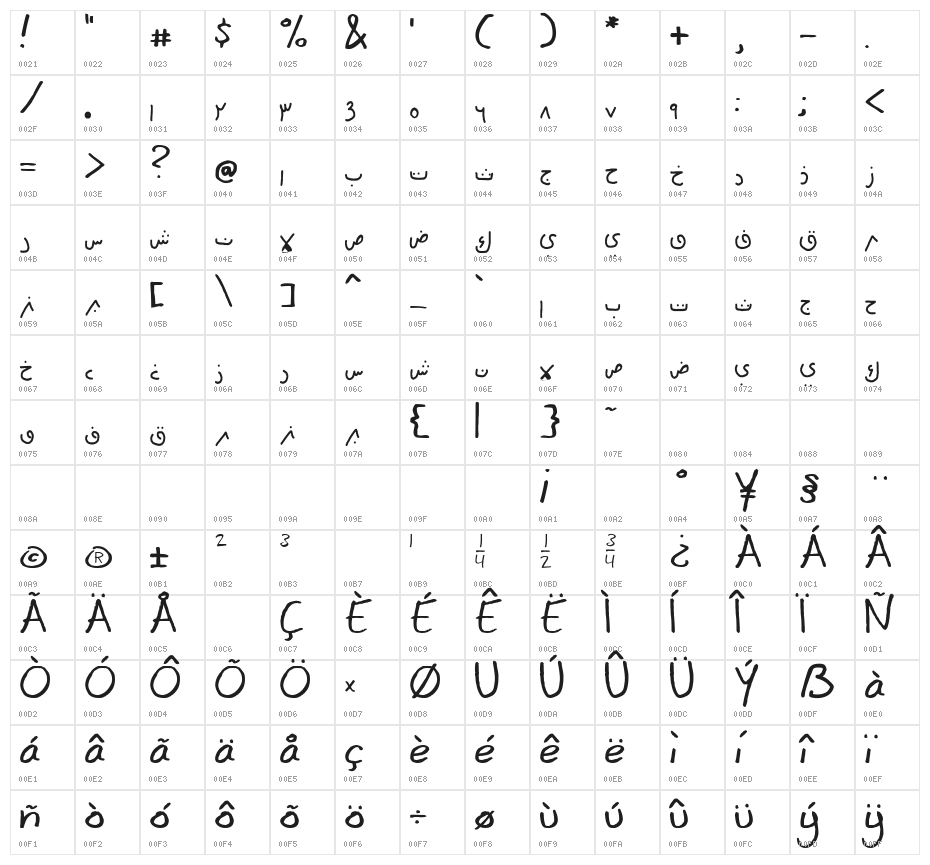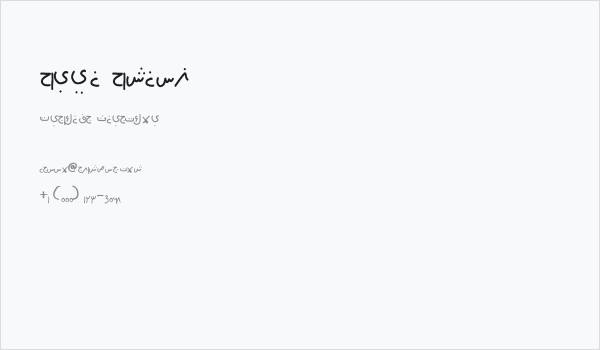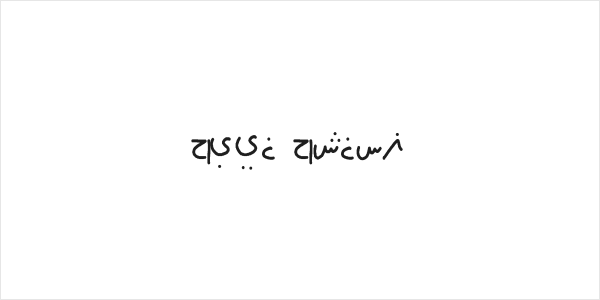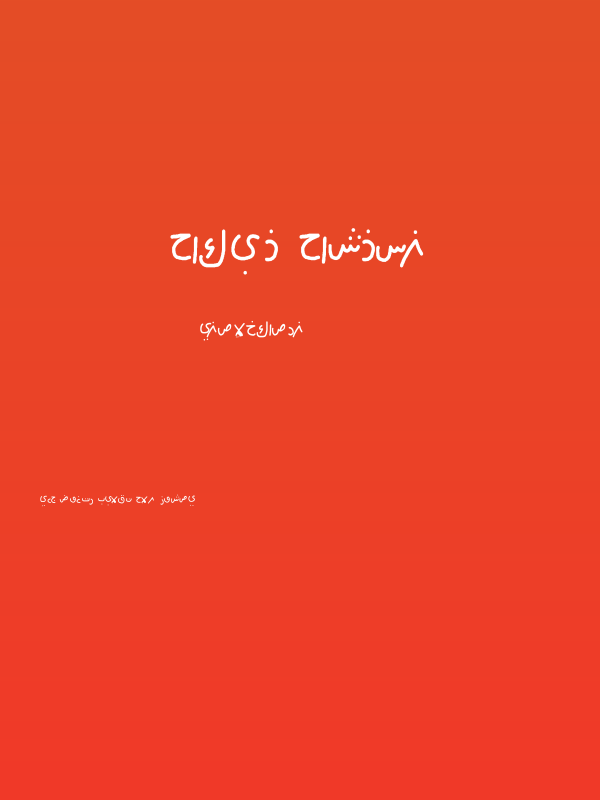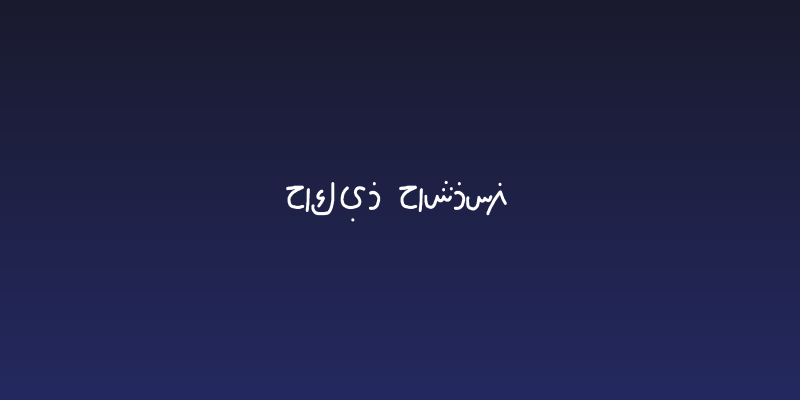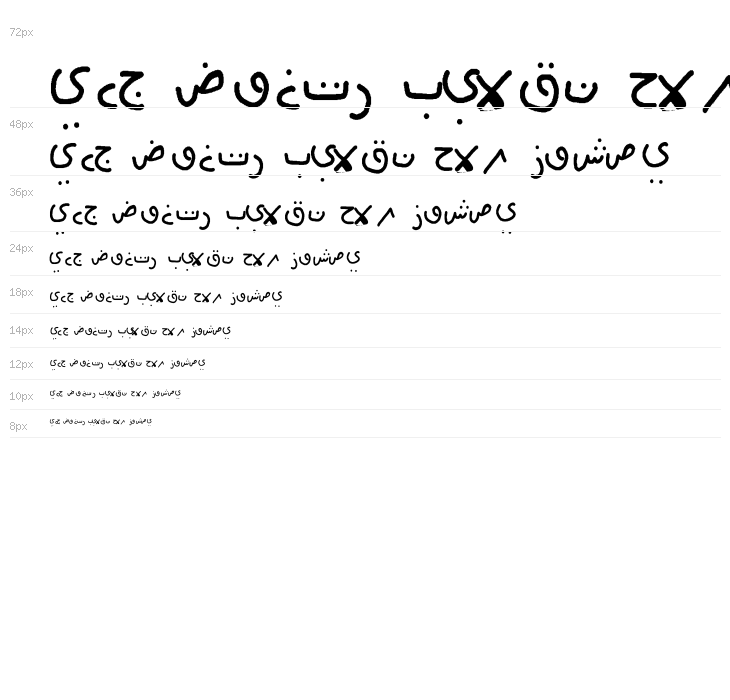
farsi family Font
farsi family Description
This font features a playful and casual handwritten style, characterized by its irregular strokes and organic flow. The letters are slightly tilted, giving it a dynamic and informal appearance. The strokes vary in thickness, adding a sense of movement and personality to the text. The numbers and special characters maintain the same playful aesthetic, ensuring consistency across all elements. This font's unique style makes it stand out, offering a friendly and approachable feel.
| Use Case | Greeting cards, Personal notes, Creative projects |
| Proposed Projects | Ideal for greeting cards, personal notes, children's books, and creative projects that require a friendly and informal touch. |